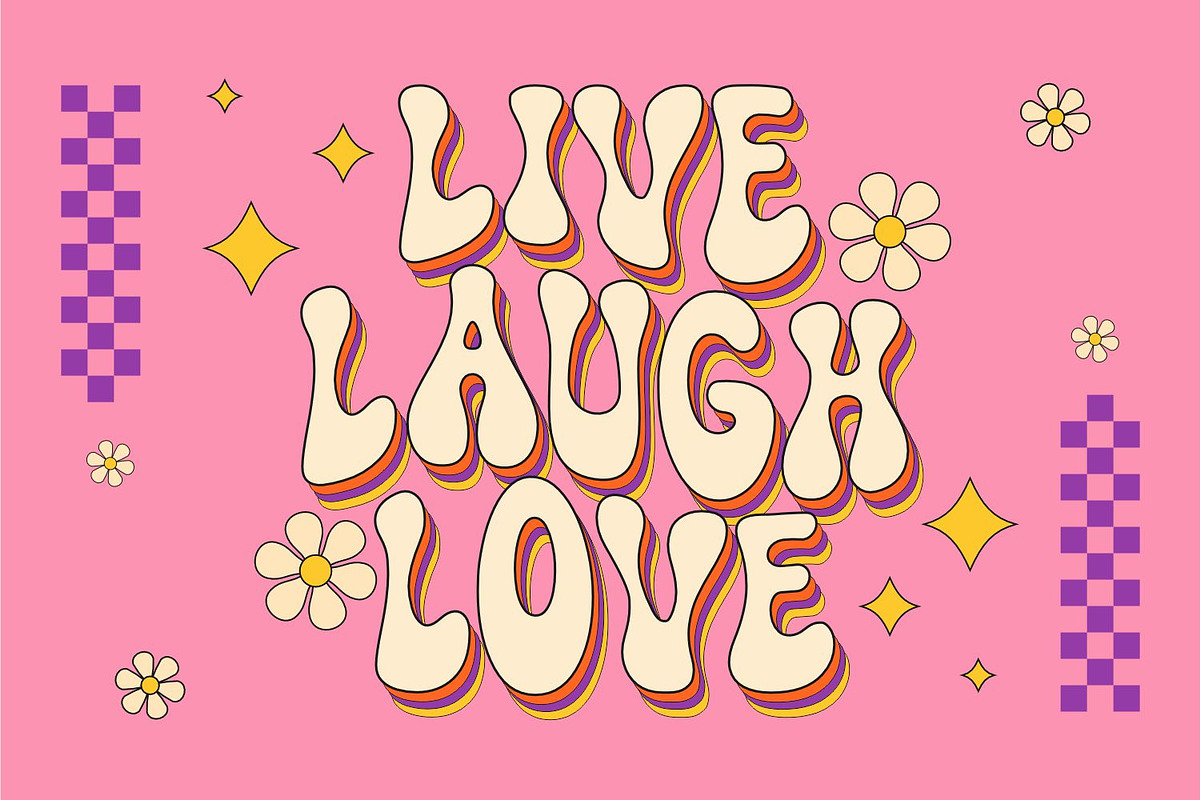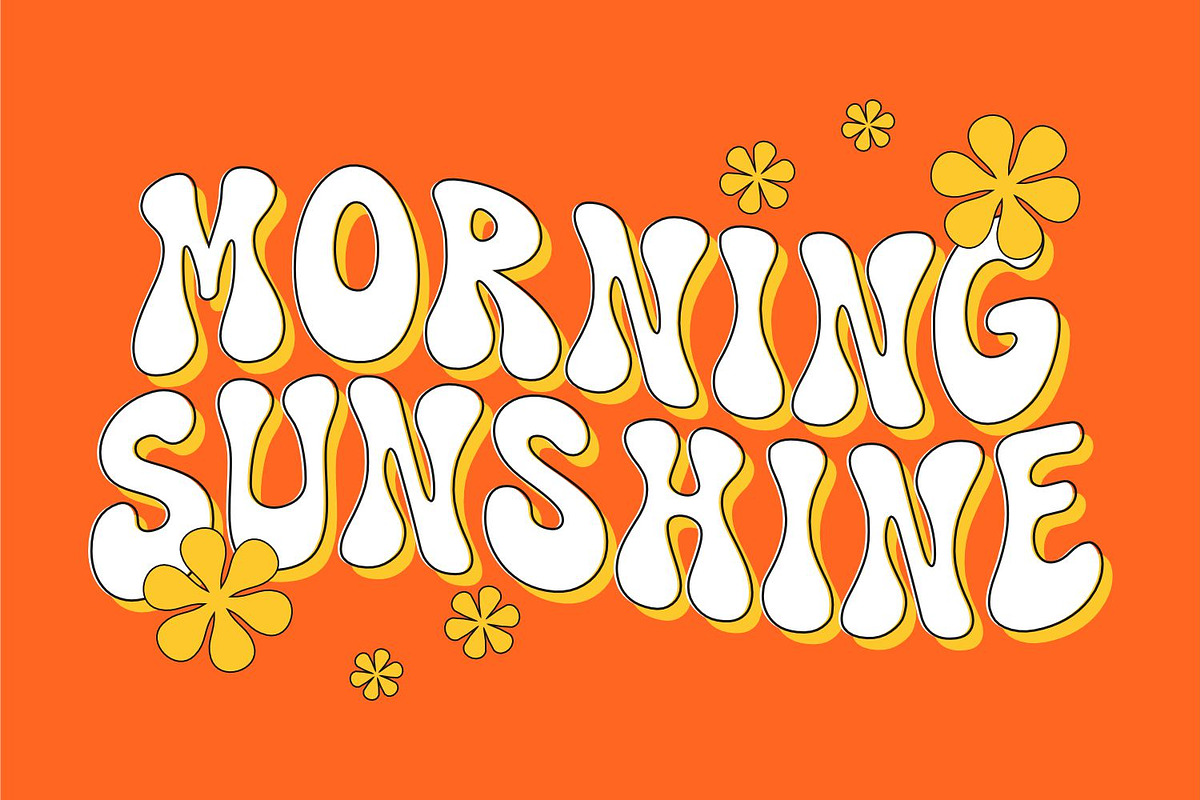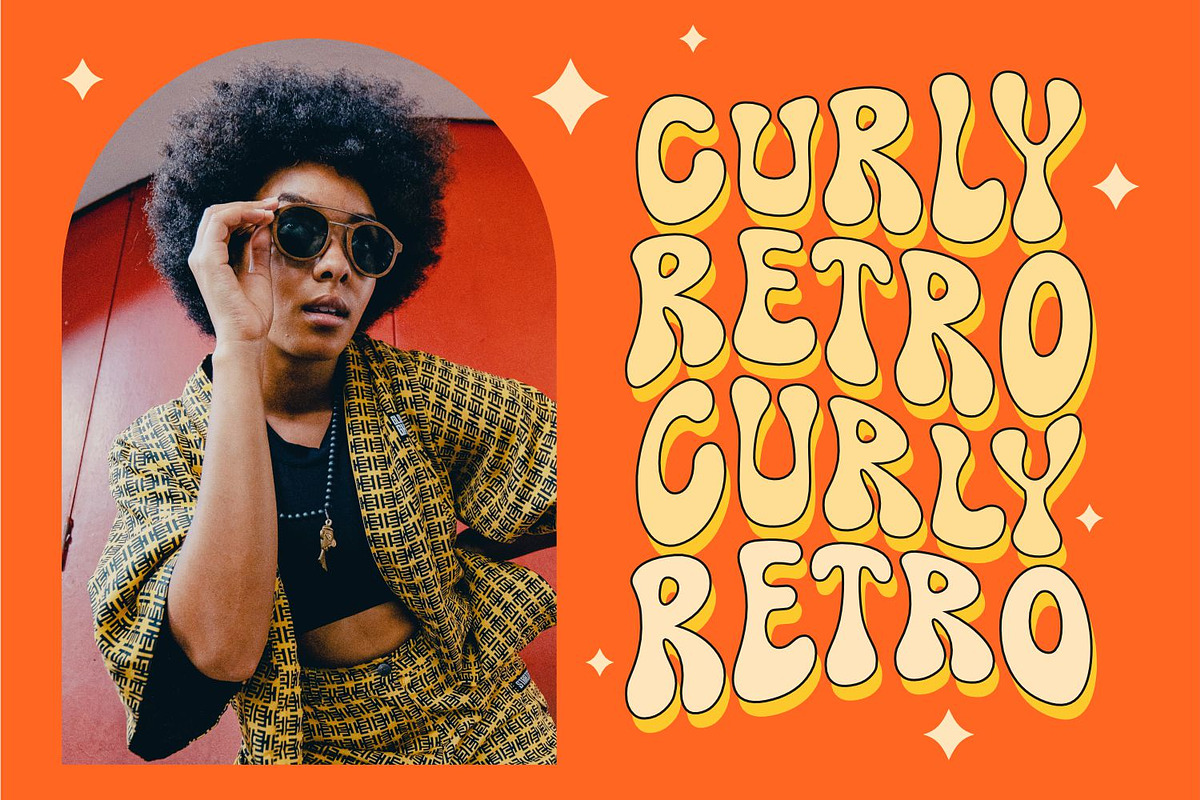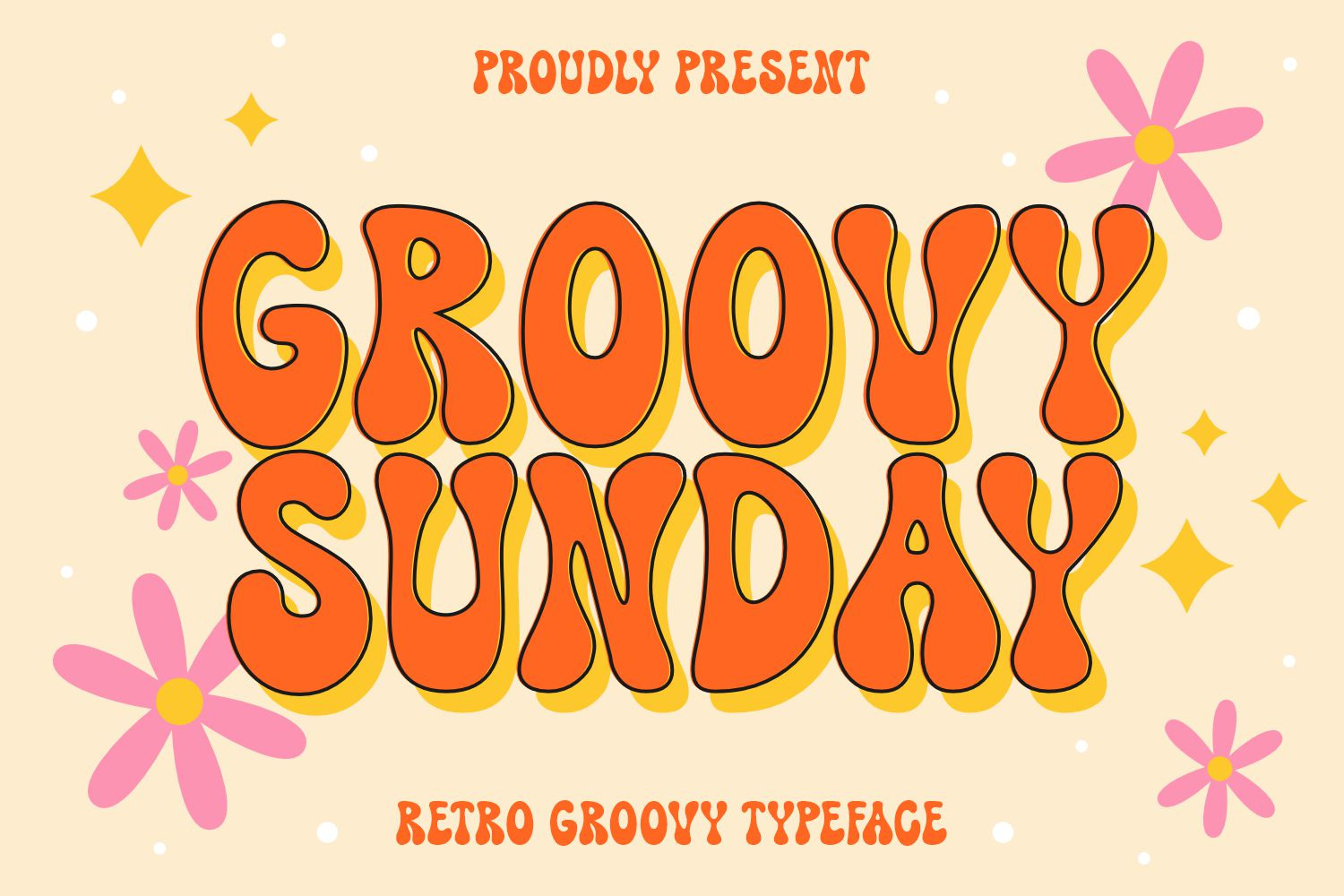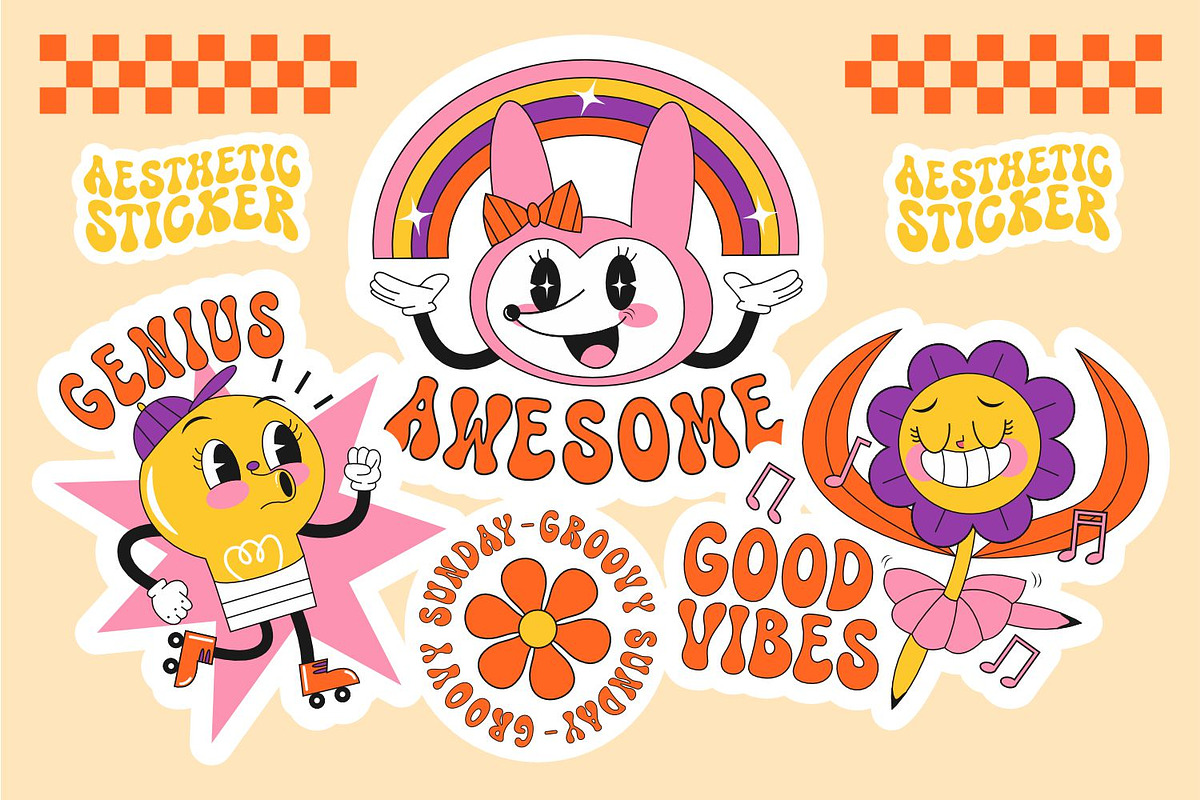
Groovy Sunday - Retro Font
Groovy Sunday is a retro groovy display font. Use this display font to add that special retro touch to any design idea you can think of.. this font has the potential to bring each of your creative ideas to the highest level !